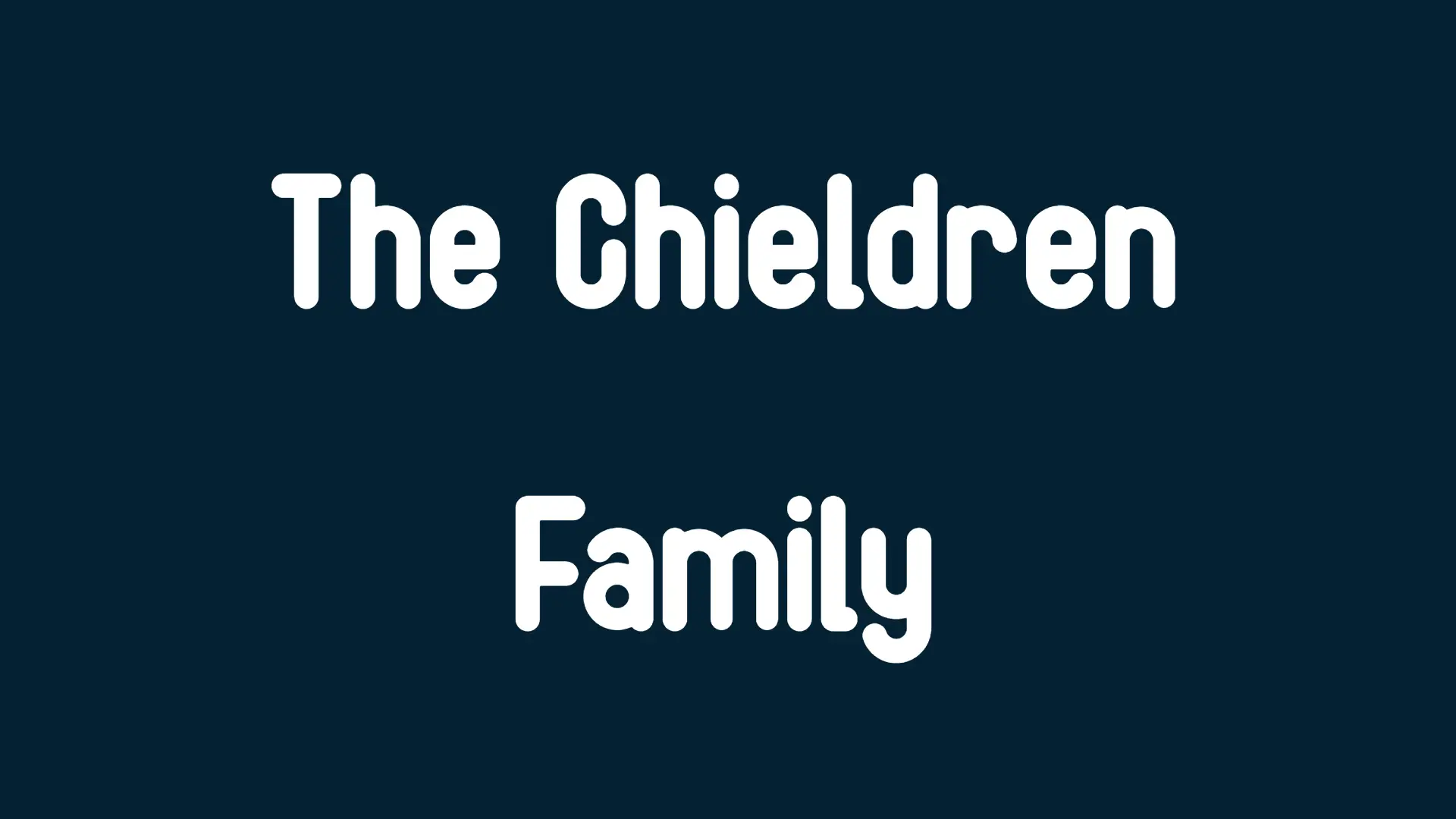
The Chieldren Family
The Chieldren Family is a basic font made by Kong Font. Plain and practical, it keeps the focus on your words rather than on the lettering. You can download it for free and test it with your own words in the preview above.
What You Can Type With The Chieldren Family
The Chieldren Family covers the full alphabet in upper and lowercase, plus all ten numbers, so you can set names, dates and prices without switching fonts. Everyday marks like &, !, ? and @ are there too. Thanks to its accented letters, it also works for Spanish, French, German, Portuguese and Italian, not just English.
Where The Chieldren Family Works Best
Designers usually reach for fonts like The Chieldren Family when they're making everyday text, websites and clean logos. Fonts like this are workhorses: use them for body text, captions and anything people need to read quickly.
Does The Chieldren Family support accented letters?
Yes. The Chieldren Family includes the accented letters needed for Spanish, French, German, Portuguese and Italian, so it works for more than just English.
What fonts pair well with The Chieldren Family?
Add a more decorative display font for the headline if your design needs extra personality.